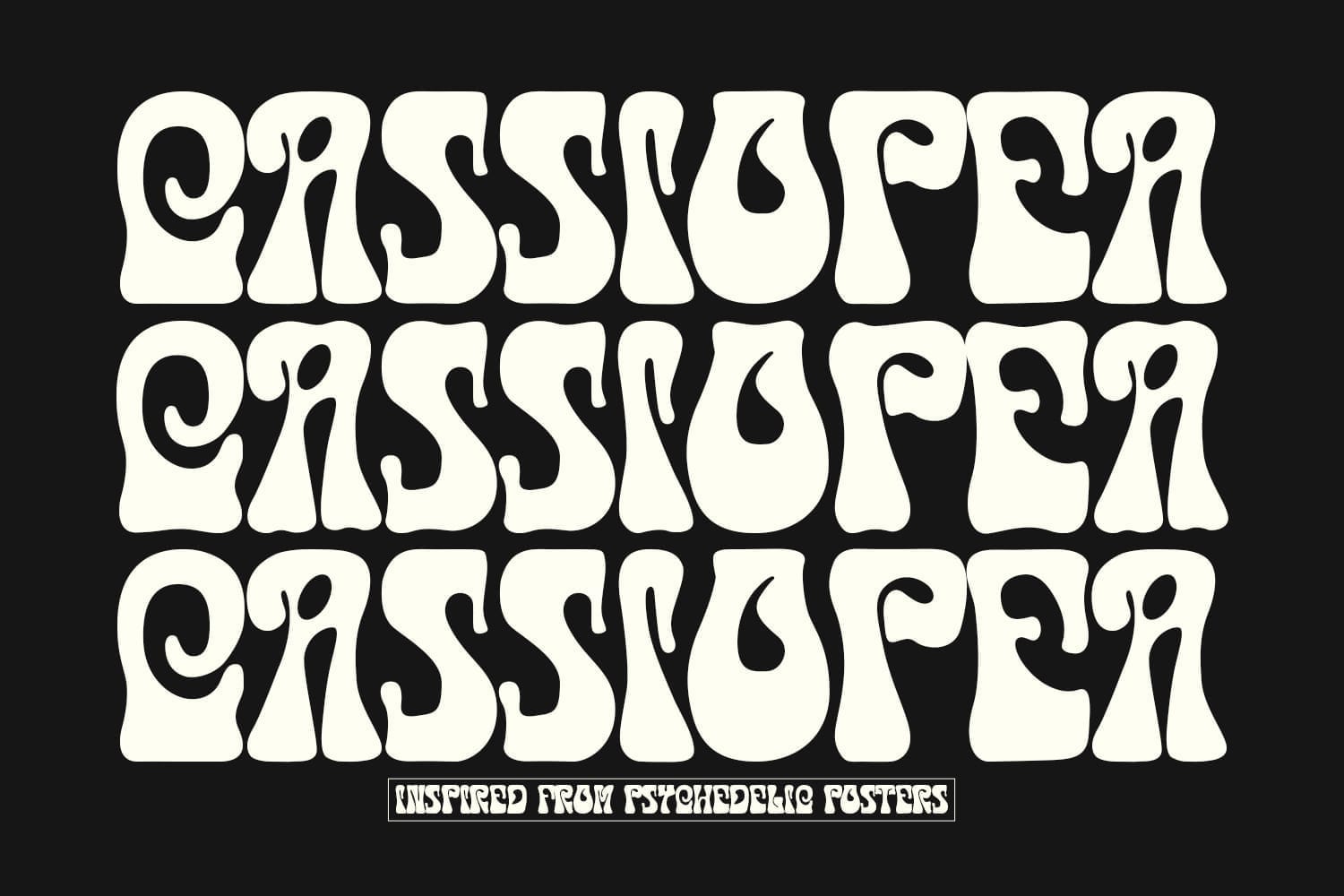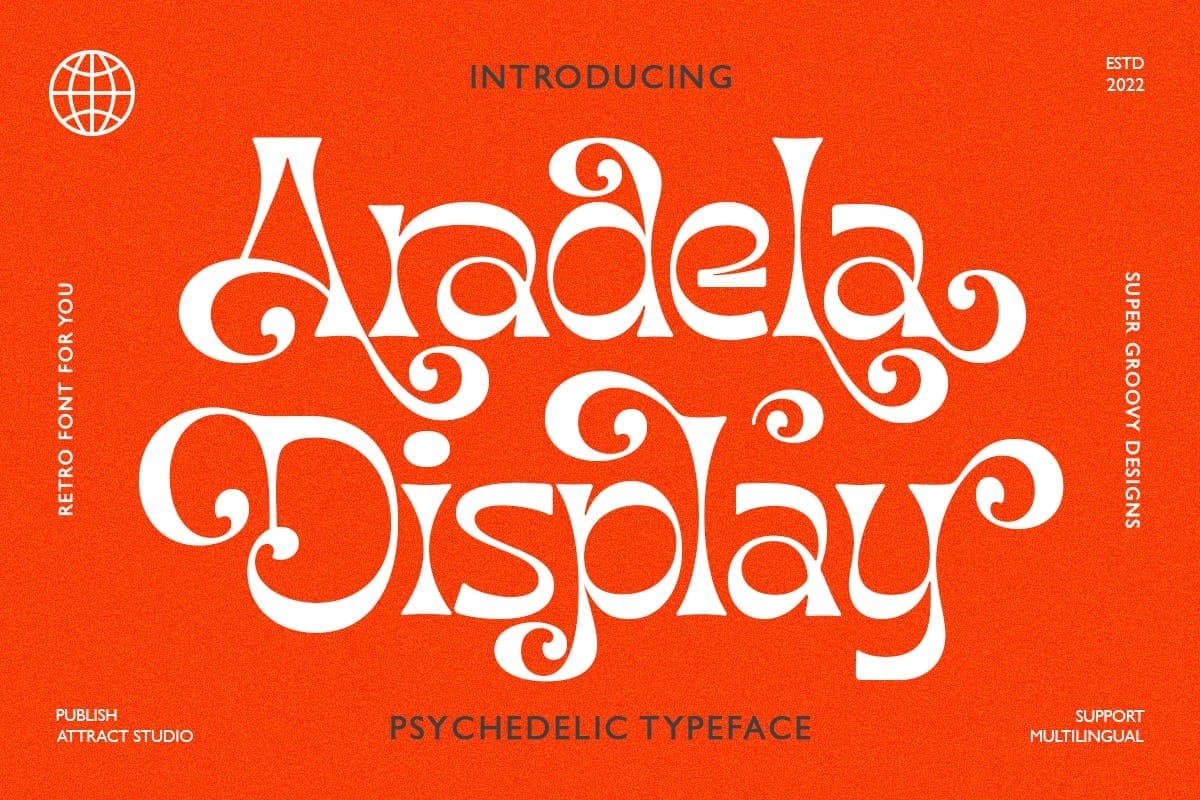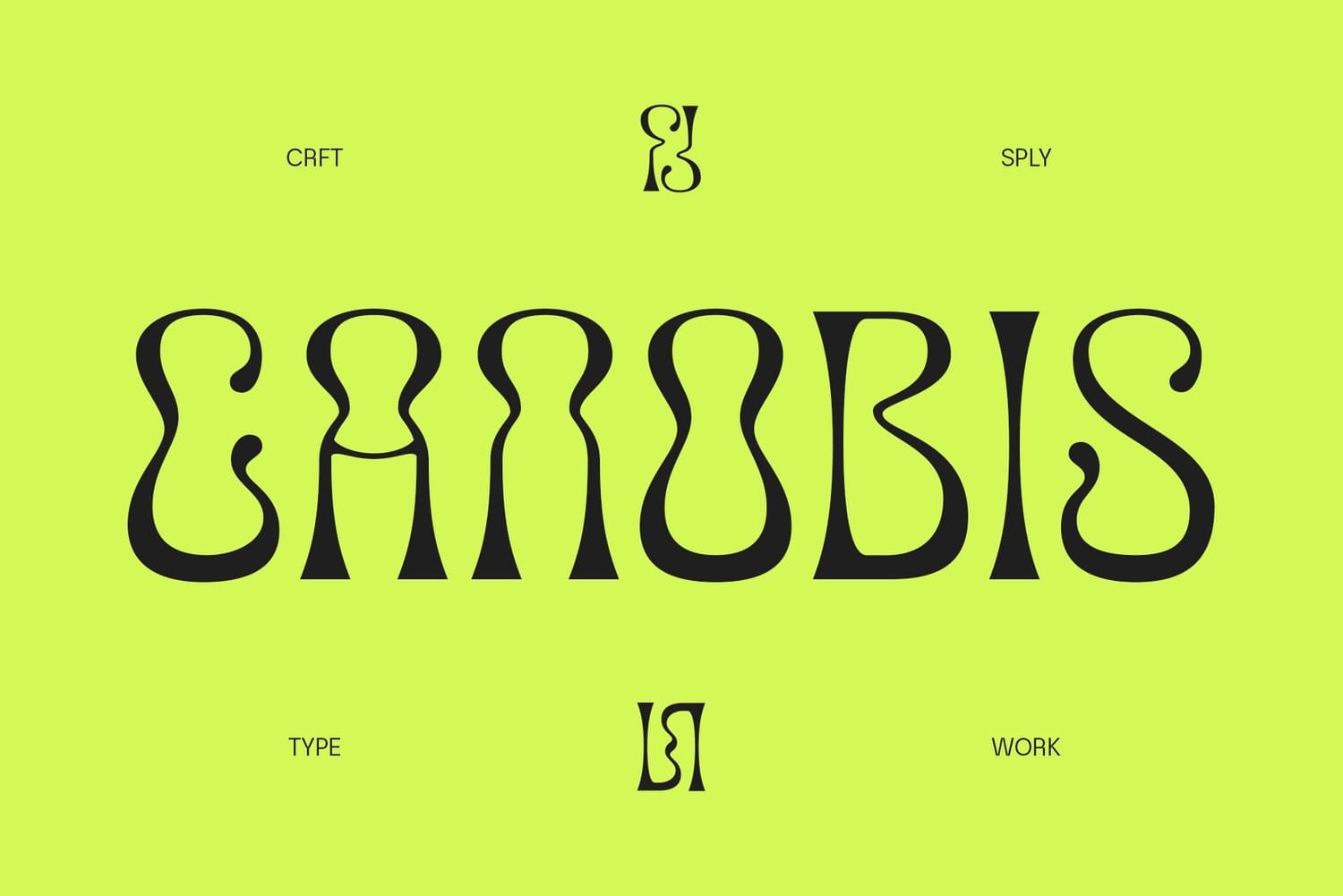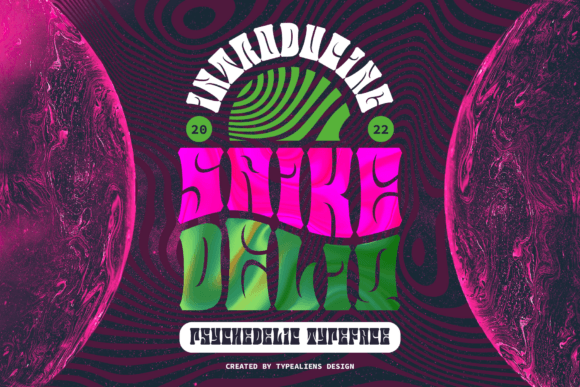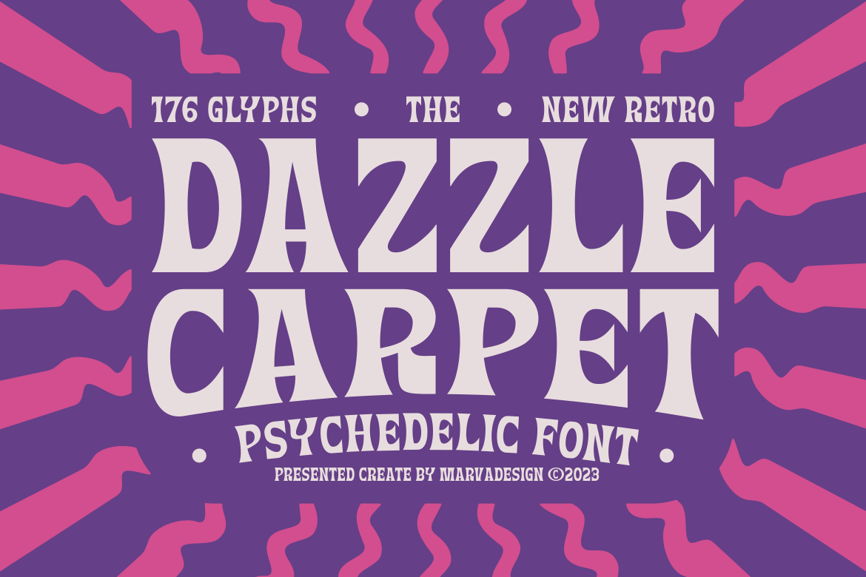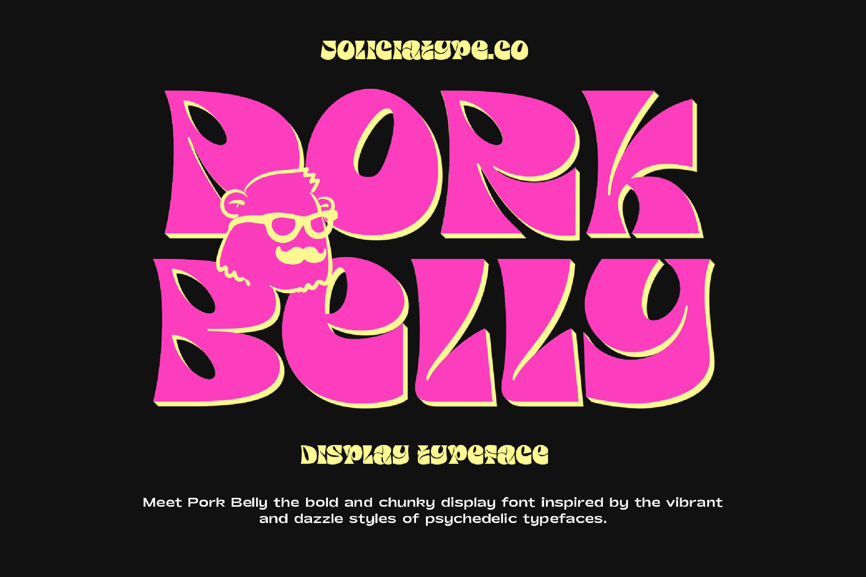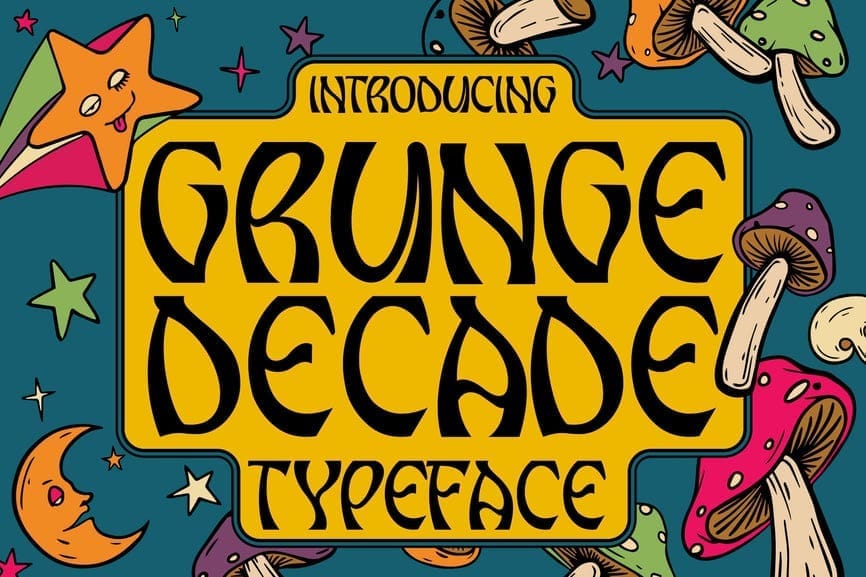
Remember the days of bell bottoms, lava lamps, and posters that pulsed with color and mind-bending swirls? Well, guess what? The groovy vibes of retro design are back in a big way! And a key ingredient to capturing that authentic, nostalgia-laced aesthetic? Psychedelic fonts, baby!
These far-out typefaces, with their bold colors, wavy lines, and trippy flourishes, aren't just for concert posters anymore. They're a powerful tool for designers looking to create eye-catching visuals that transport viewers back to a simpler time. As retro design makes a resurgence, psychedelic fonts are stepping up to the plate, adding a layer of visual intrigue and undeniable coolness to any project. So, buckle up and get ready to dive into the world of groovy typography!
So, what exactly is it that makes a font "psychedelic"? It's more than just a passing resemblance to a lava lamp; it's about a distinct visual language that evokes the counterculture movements of the 1960s and 1970s.
At its core, a psychedelic font is characterized by:
While not inherent in the font file itself, psychedelic fonts are almost always presented with or intended for use with bold, often clashing, and highly saturated color palettes. Think neons, glowing hues, and swirling combinations that create a sense of optical illusion.
The letterforms themselves are far from conventional. You'll see:
Wavy lines: Letters often appear to undulate and flow, mimicking the visual distortions associated with psychedelic experiences.
Swirling flourishes: Decorative elements that twist and turn, adding to the hypnotic quality.
Organic and fluid forms: Shapes that feel less rigid and more natural, sometimes even resembling melting or growing forms.
Distortion and warping: Letters can be stretched, compressed, or bent in unconventional ways, creating a sense of movement and unreality.
These fonts aren't about seriousness; they're about fun, freedom, and a return to a more imaginative era. They instantly transport viewers back to a time of "flower power" and revolutionary thought, evoking a playful and sometimes trippy feeling.
Ultimately, a psychedelic font aims to be more than just readable text. It's a visual experience, designed to grab attention and immerse the viewer in a specific mood or theme, often echoing the artistic expressions of the counterculture era.
We've dived headfirst into the world of psychedelic fonts, understanding their history and how to use them effectively. Now, buckle up for a whirlwind tour of 13 far-out fonts that will take your retro designs to a whole new level!
Marthy isn't your average retro font. Drawing inspiration from the psychedelic swirls of the 1970s and the elegance of Art Nouveau, Marthy takes you on a groovy trip down memory lane. Its expressive letterforms are perfect for adding a touch of vintage flair to branding, music posters, album covers, book titles, and more. So, if you want to evoke a sense of nostalgia and capture the essence of the swinging sixties and seventies, Marthy is the font for you!
Tanamera is a totally groovy font that will take you back to the psychedelic era of the 60s and 70s. With its swirly letters and outta-sight design, Tanamera is perfect for designing posters, album covers, or anything else that needs a little bit of peace, love, and far-out flair.
Surreal is a hand-drawn psychedelic font inspired by the mid-'60s movement. Perfect for groovy posters and experimental artwork, it injects mojo into retro designs. With uppercase, lowercase, numbers, and punctuation, it ensures your projects grab attention. Available in OTF and TTF versions, Surreal adds a unique touch to any design project.
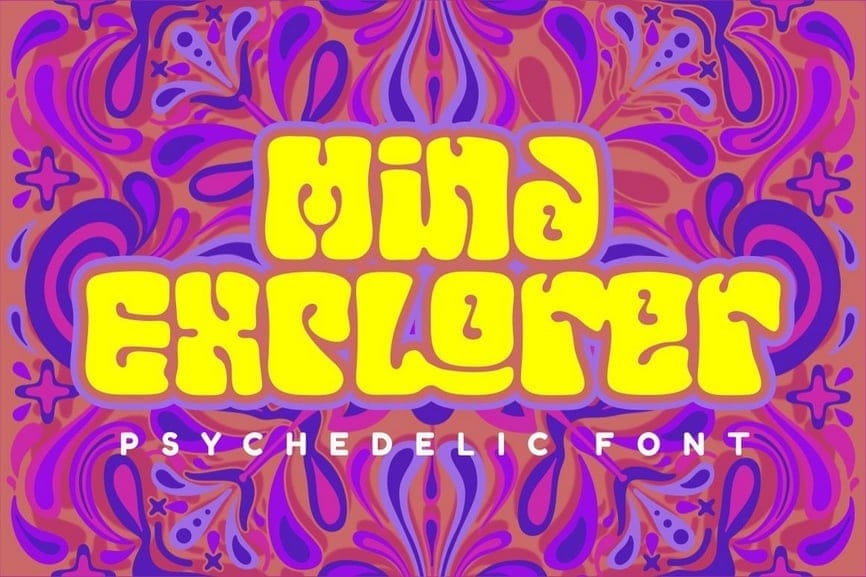
Get ready to journey into a world of vibrant psychedelia with Mind Explorer! This font is a true blast from the past, drawing inspiration from the iconic album covers and posters of 1960s music bands. Its classic, fun, and undeniably groovy impression makes it perfect for adding a vintage touch to your designs. Mind Explorer boasts unique ligatures and alternative characters, which can be accessed through OpenType features, allowing for even more creative freedom. Ideal for album art, posters, labels, logos, and greeting cards, this font also supports multiple languages, making it a versatile choice for any display purpose.
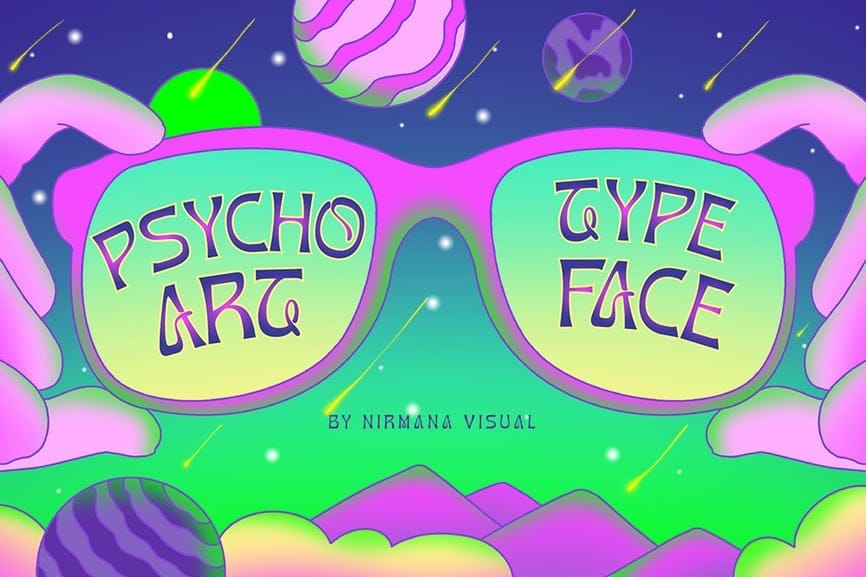
Psychoart Typeface is a contemporary serif font that takes its cues directly from the groovy 1970s era. With its unique, undulating letterforms, it's perfect for capturing that distinct psychedelic vibe. Psychoart offers beautiful typographic harmony and is incredibly versatile, making it ideal for a diverse range of design projects. Think bold logos and branding, captivating social media posts, eye-catching advertisements, and even product designs. Whether you're aiming for a 60s, 70s, or even 90s retro feel, Psychoart is a fantastic choice to add that wavy, hypnotic touch.
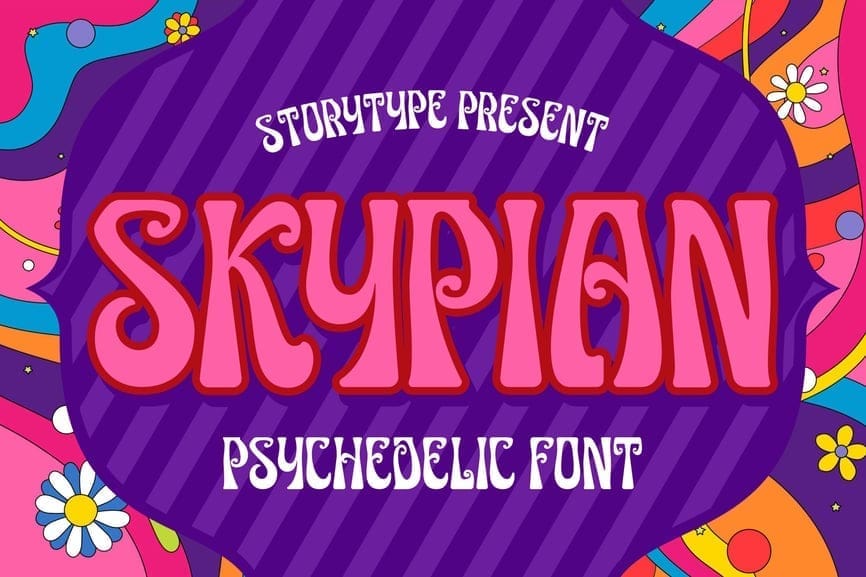
This font, presented by Storytype, is a fantastic choice for anyone looking to infuse their designs with a 60s and 70s feel. With its bubbly, slightly warped letterforms and bold, playful aesthetic, Skypian is perfect for creating truly psychedelic experiences. Think eye-catching posters, vibrant social media graphics, and branding that screams "groovy." Skypian offers both uppercase and lowercase letters, along with numerals, punctuation, and multilingual support, giving you plenty of versatility for your design projects.